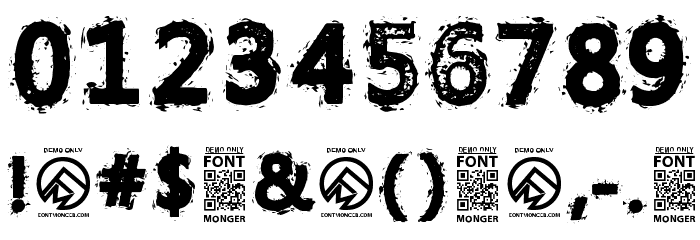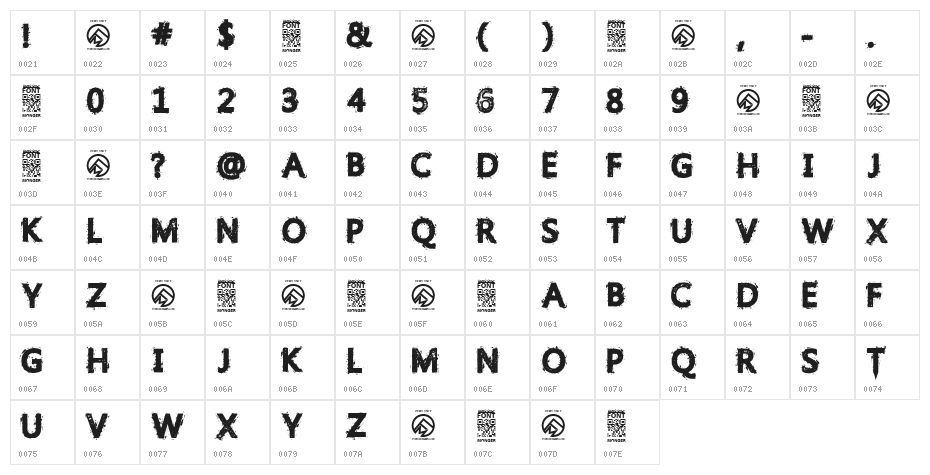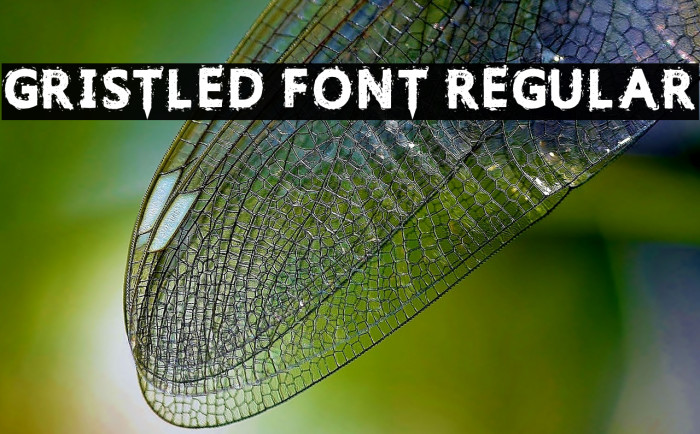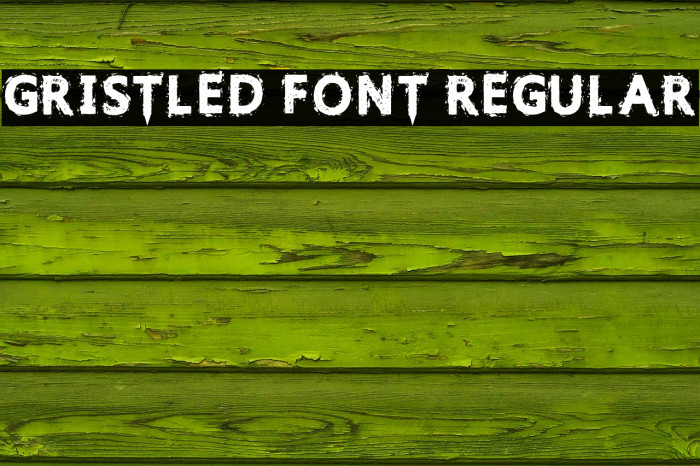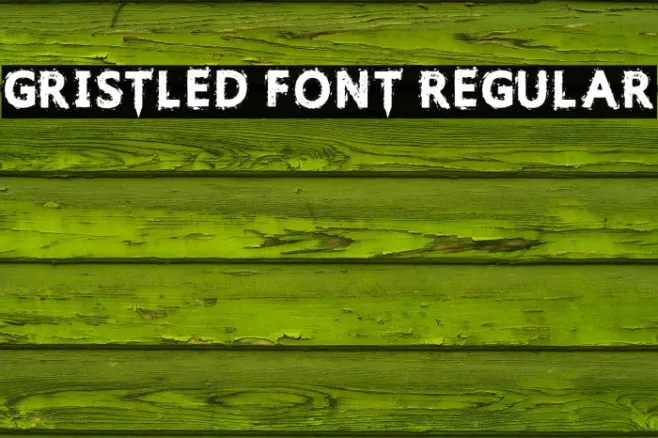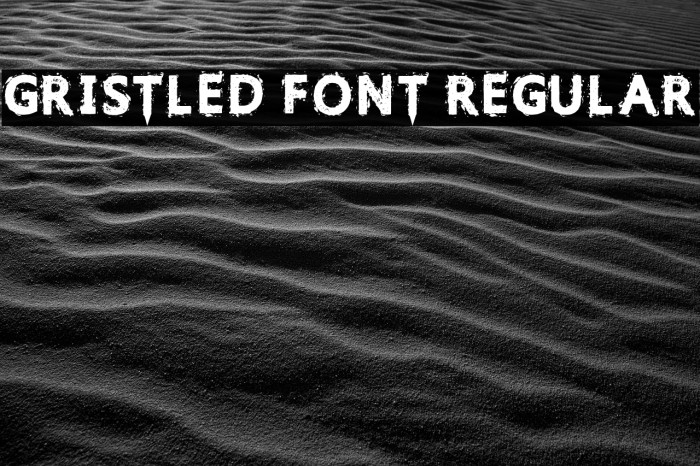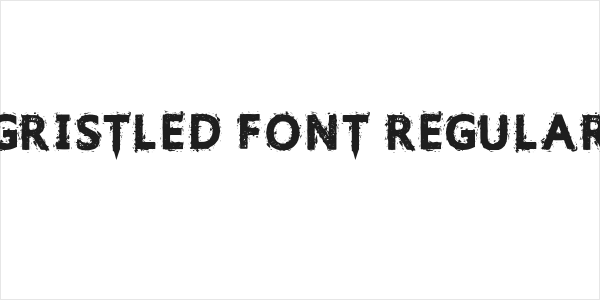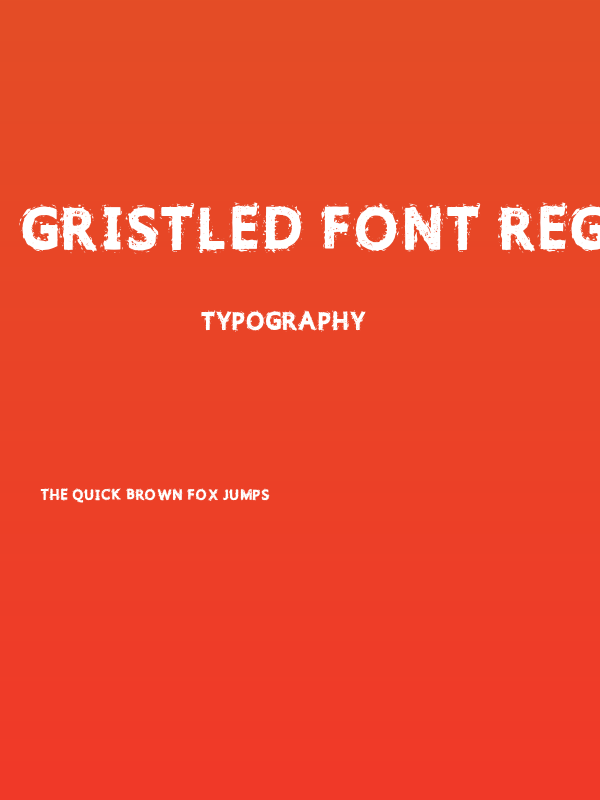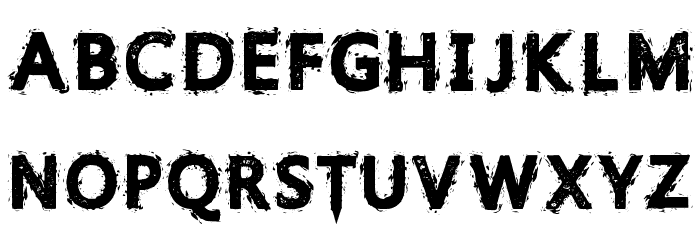
Gristled Font Regular Font
Gristled Font Regular Description
This font features a rugged, distressed appearance with a grunge texture that gives it a worn and weathered look. The characters are bold and impactful, with irregular edges that create a sense of movement and energy. The uppercase and lowercase letters maintain a consistent style, while the numbers and special characters are equally bold and textured. This font is ideal for projects that require a raw, edgy aesthetic, such as posters, album covers, or branding for alternative or rock-themed events.
Proposed ProjectsIdeal for posters, album covers, branding for alternative events, or any project needing an edgy, raw aesthetic.